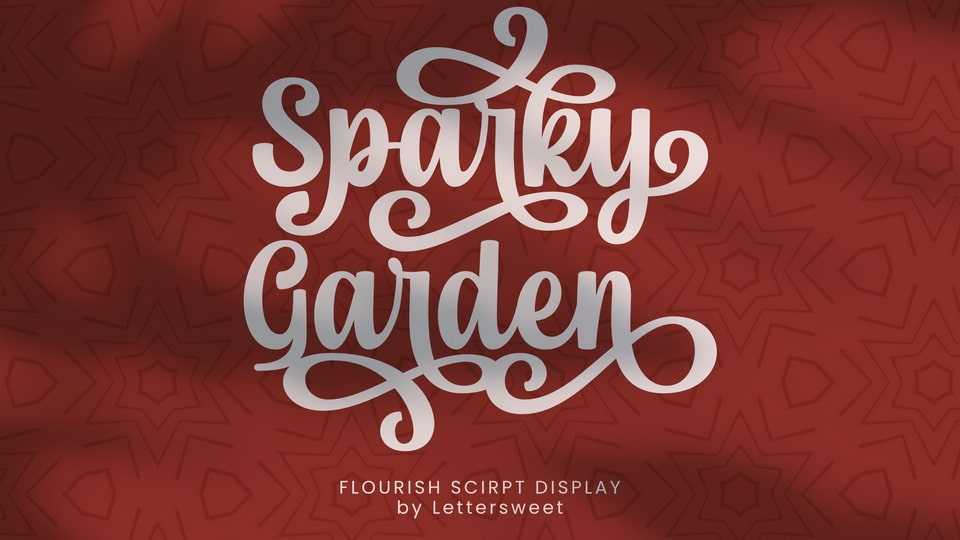
Download Sparky Garden font, a charmingly timeless handwritten typeface. Cherished for its array of alternatives, Sparky Garden has the astonishing ability to transform your designs, delivering a stunning burst of originality.